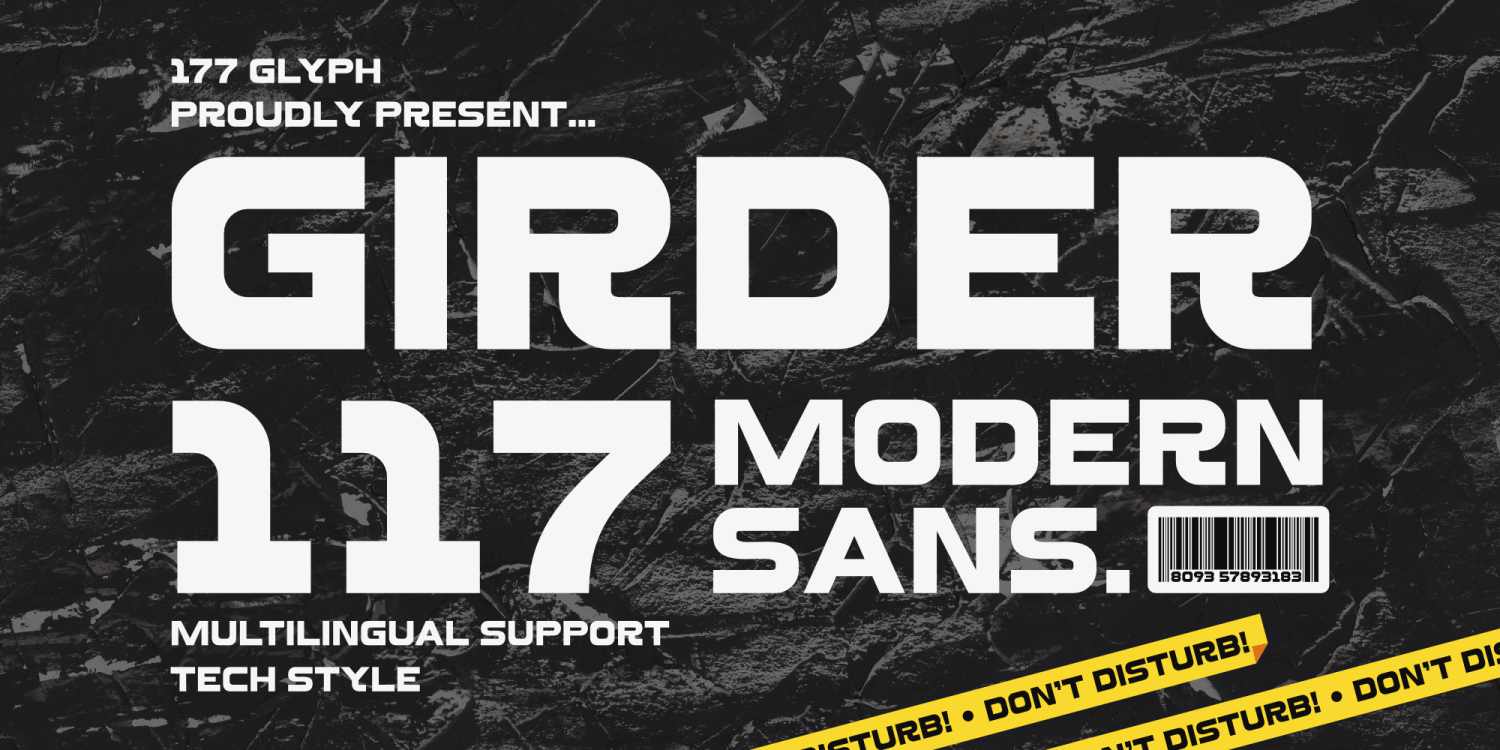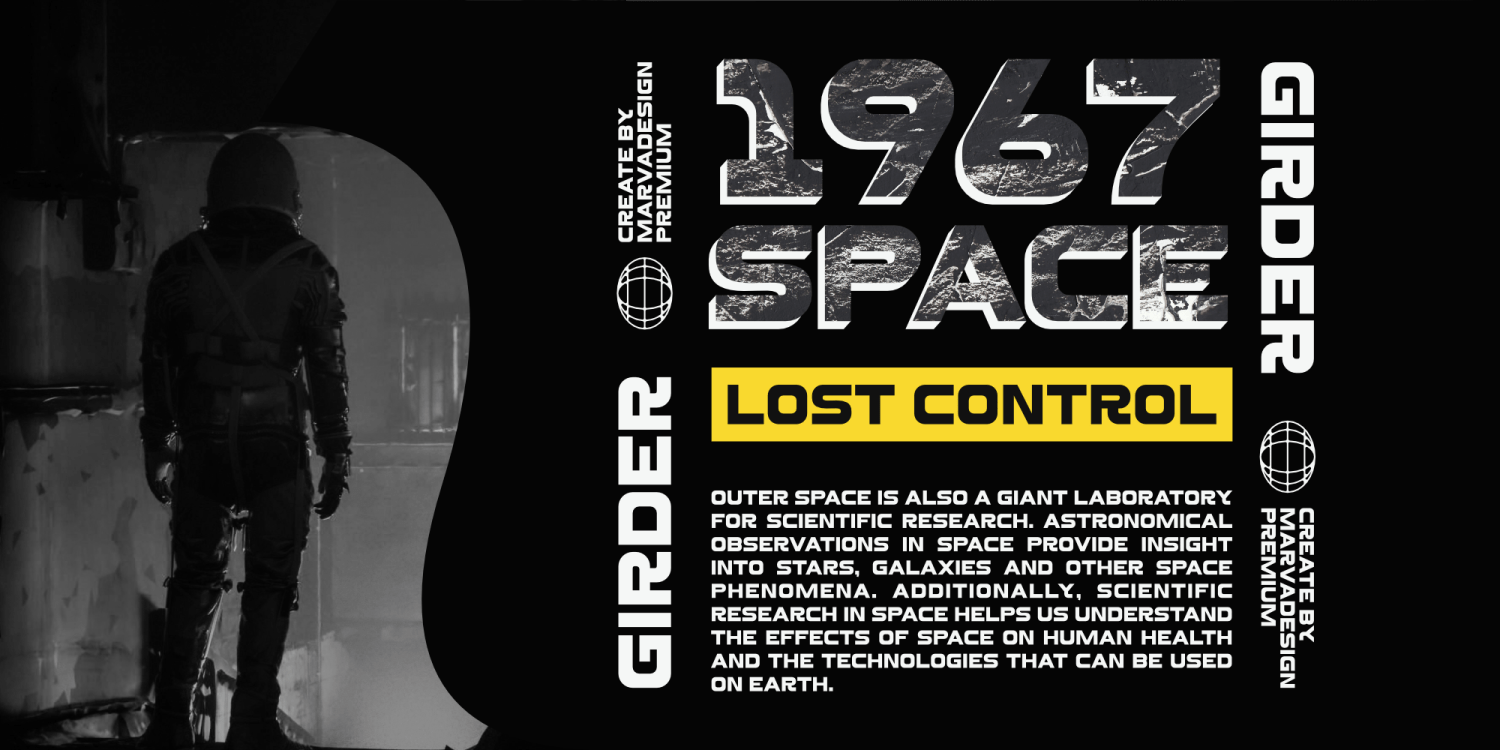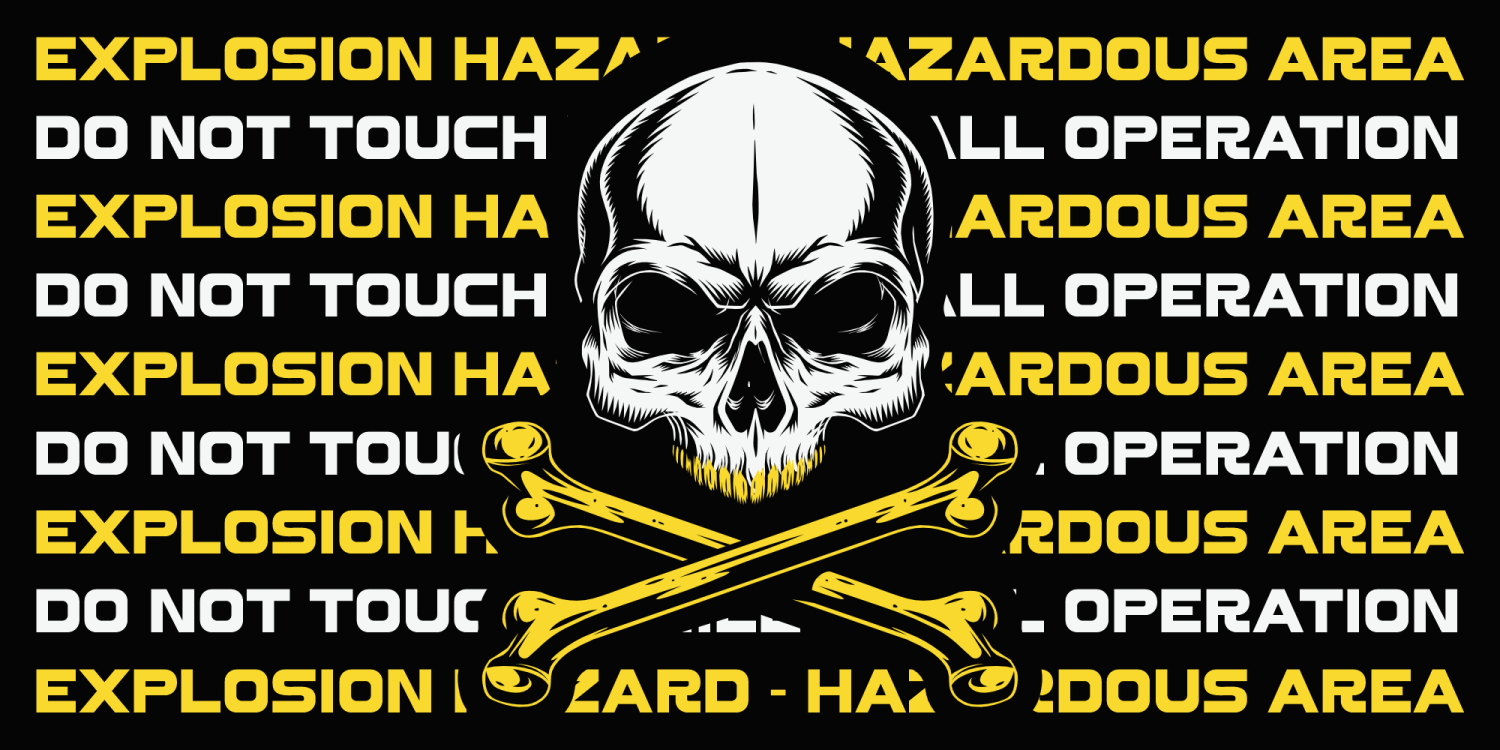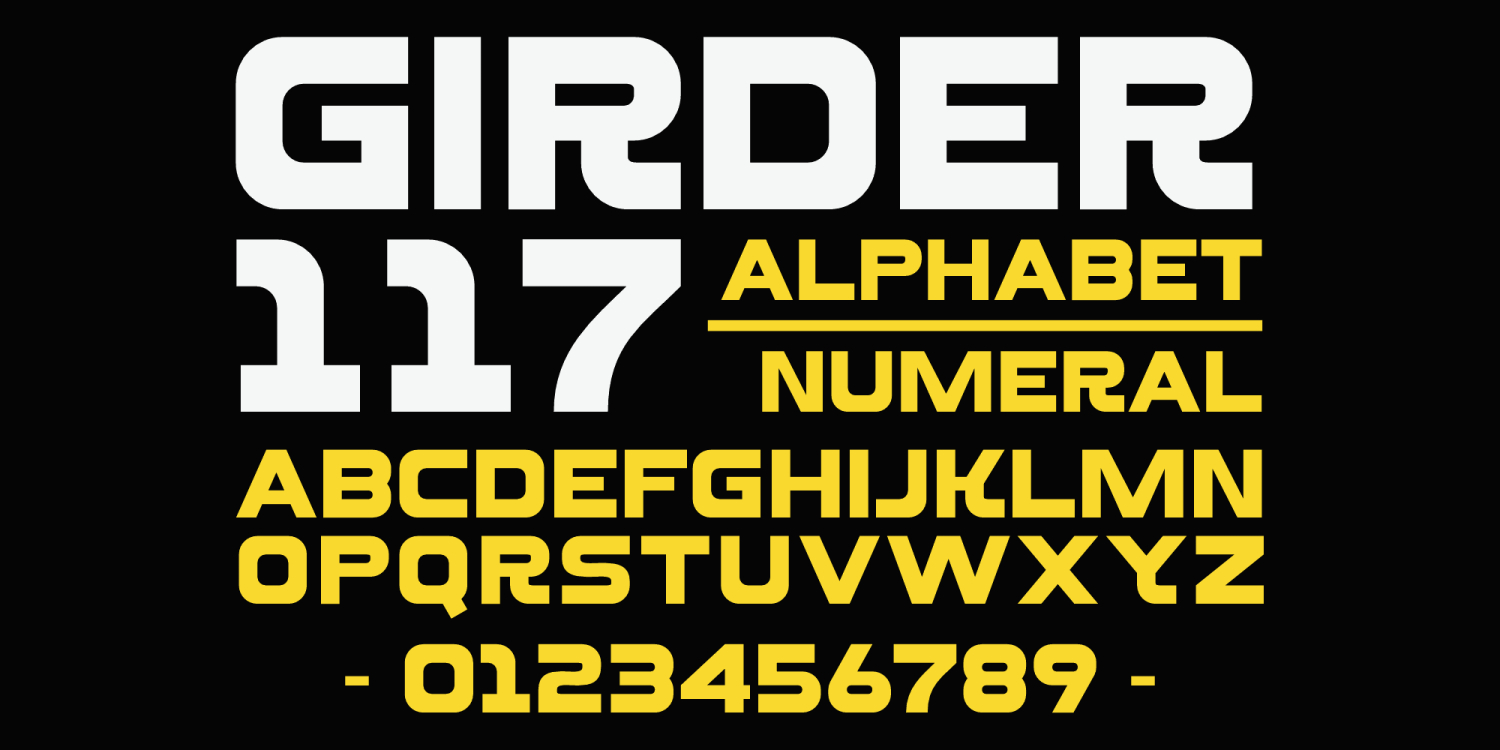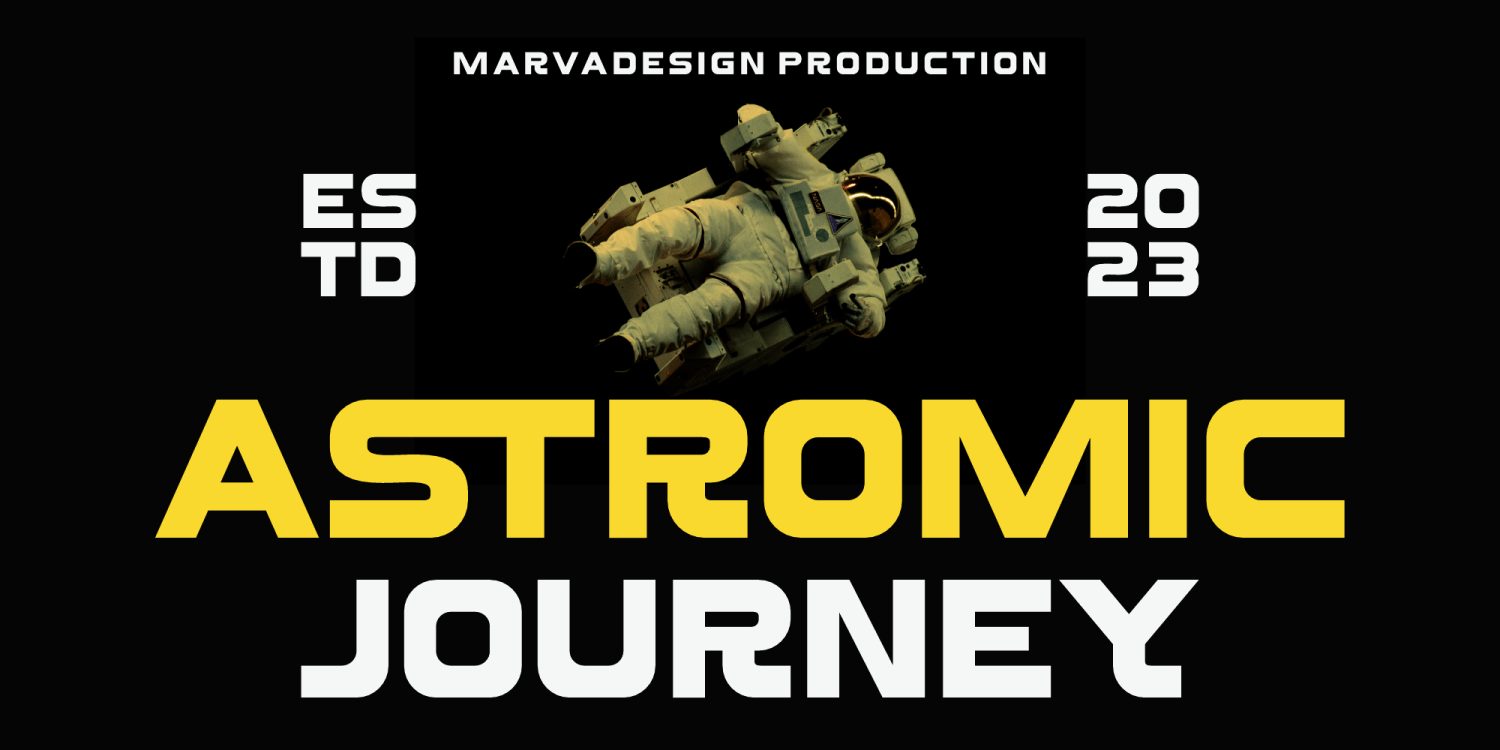
Girder 117
Font Family by Marvadesign
Introducing Girder 117 is a bold, futuristic sans-serif typeface characterized by sharp edges and geometric letterforms, offering a strong industrial and technological aesthetic. Its thick strokes and blocky structure ensure excellent visibility and readability, making it suitable for high-impact designs.